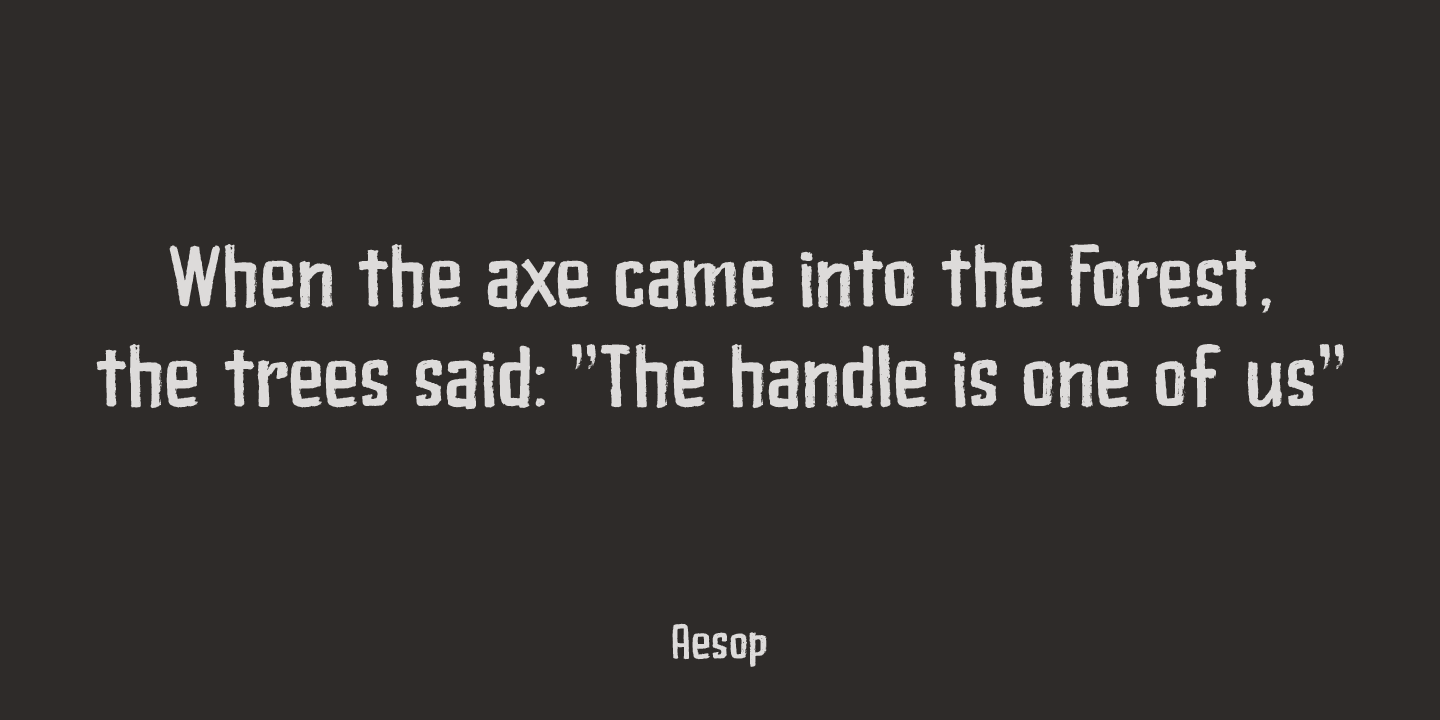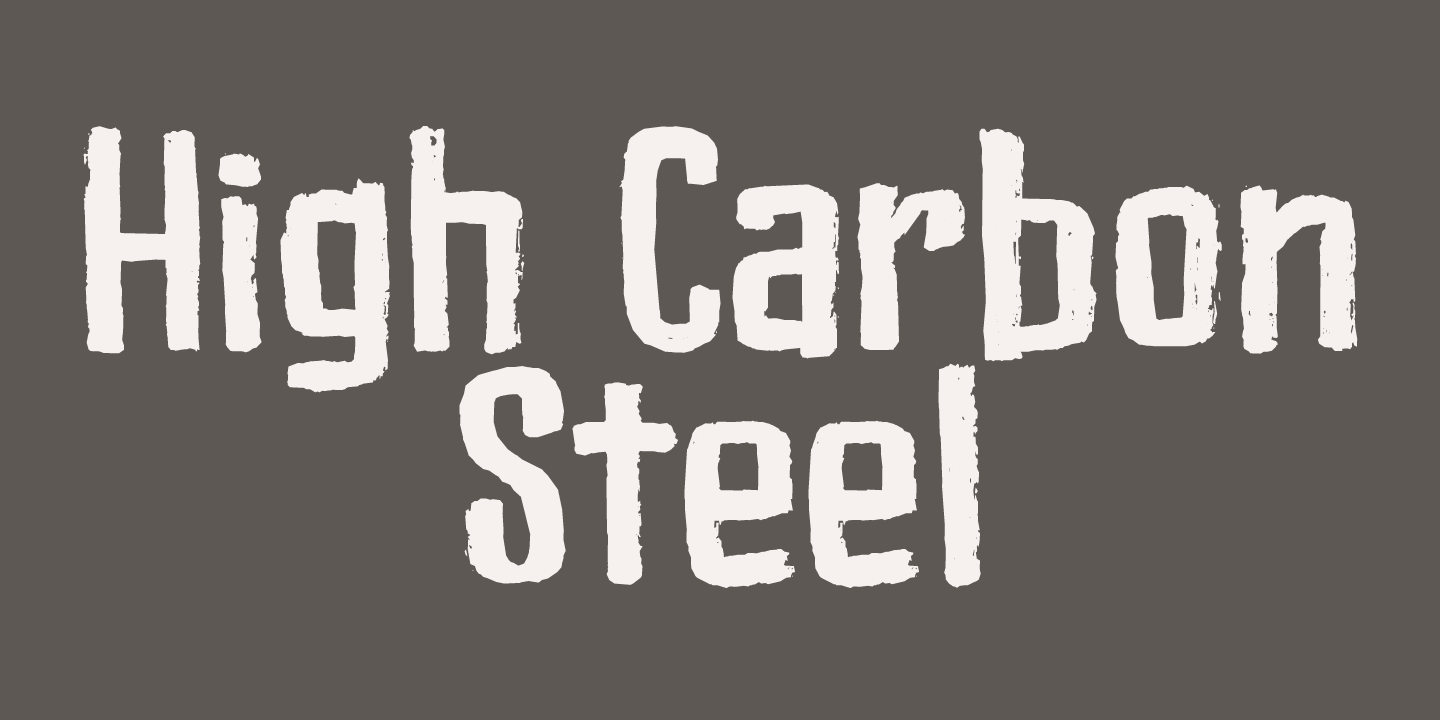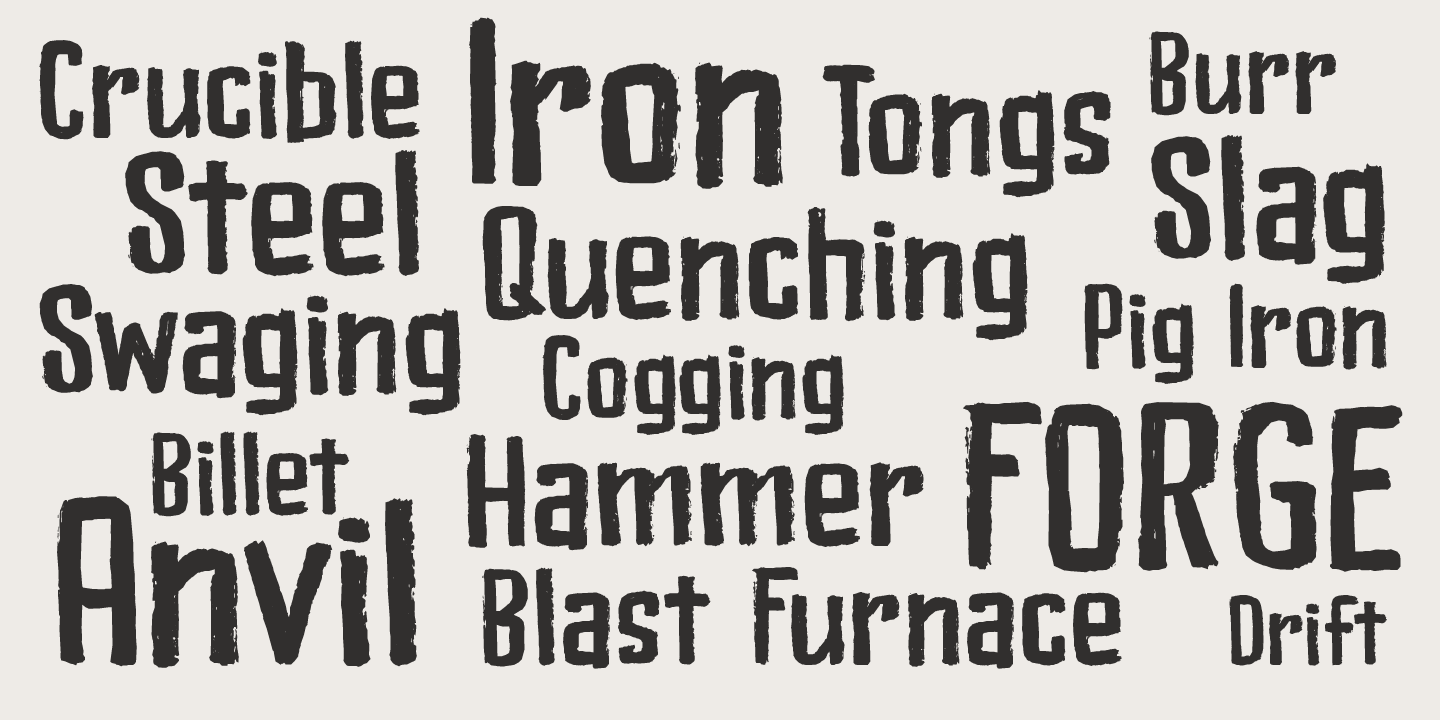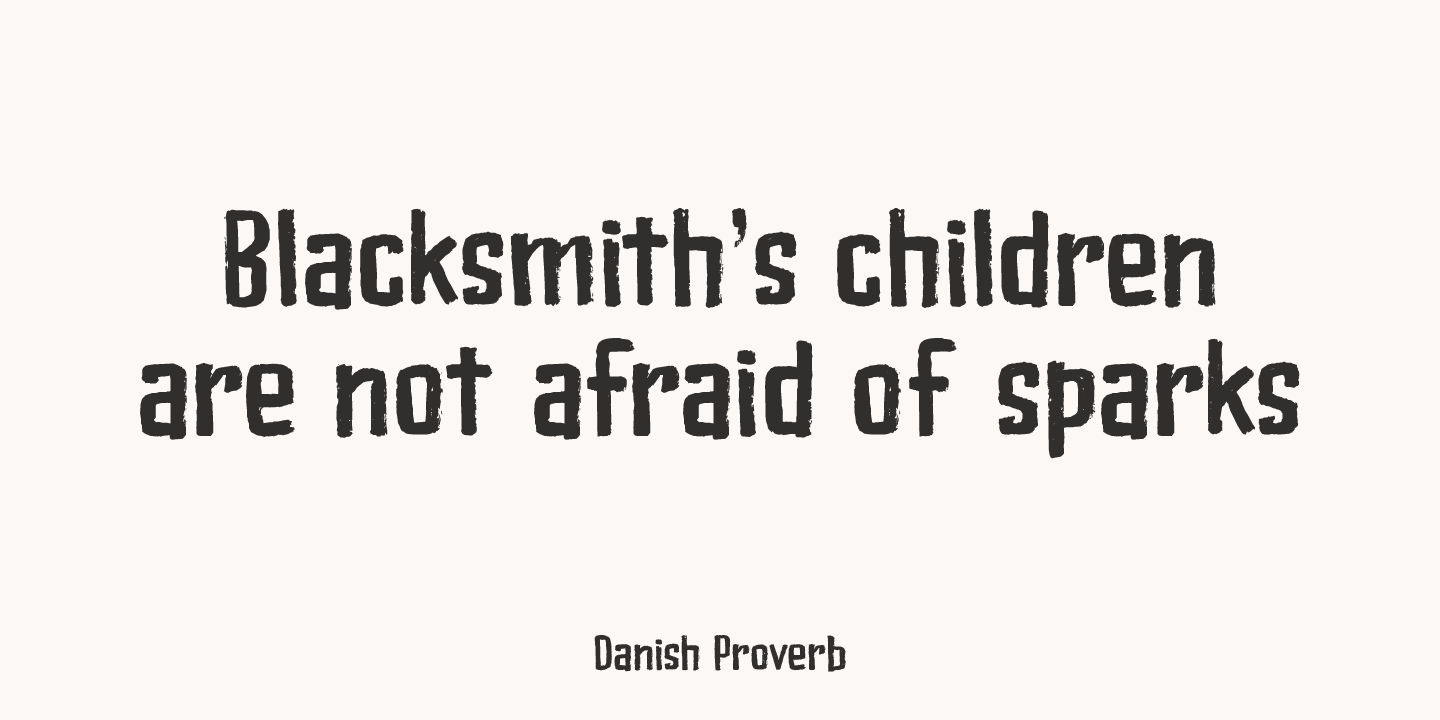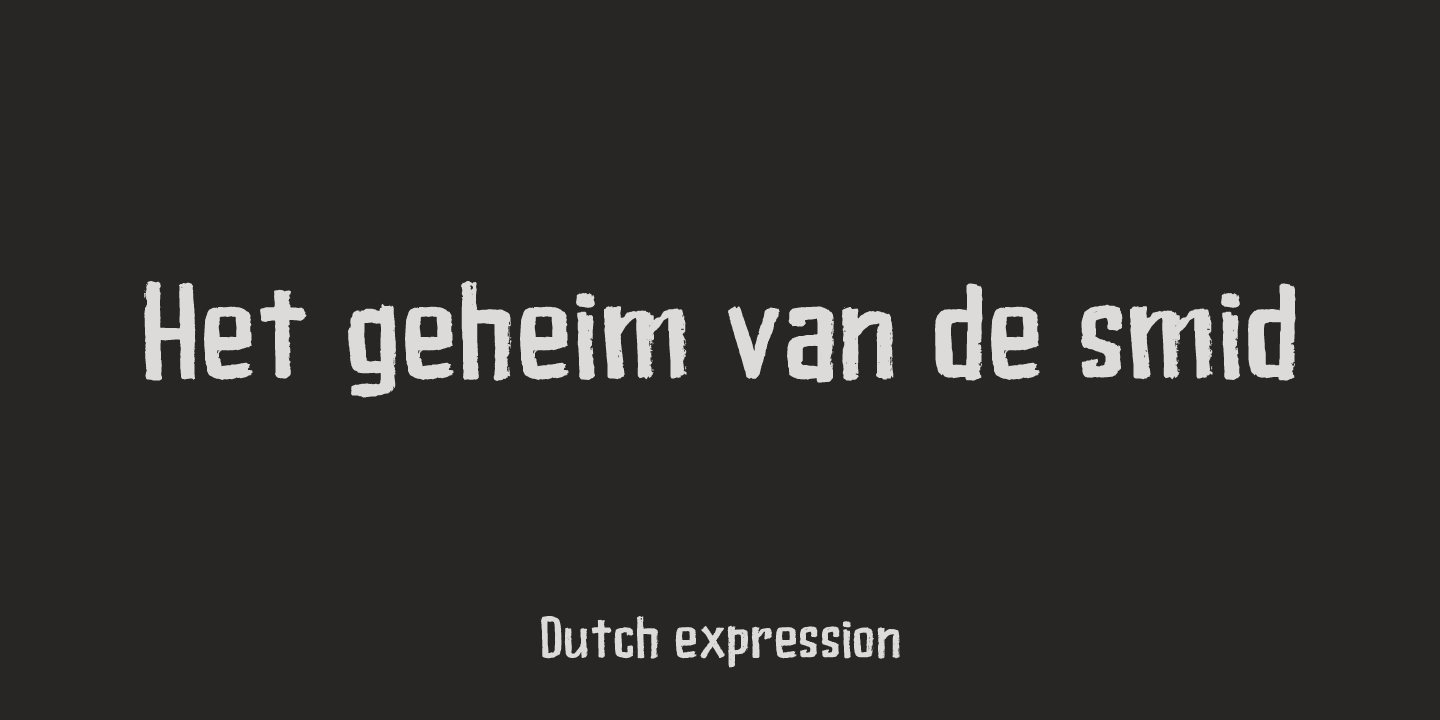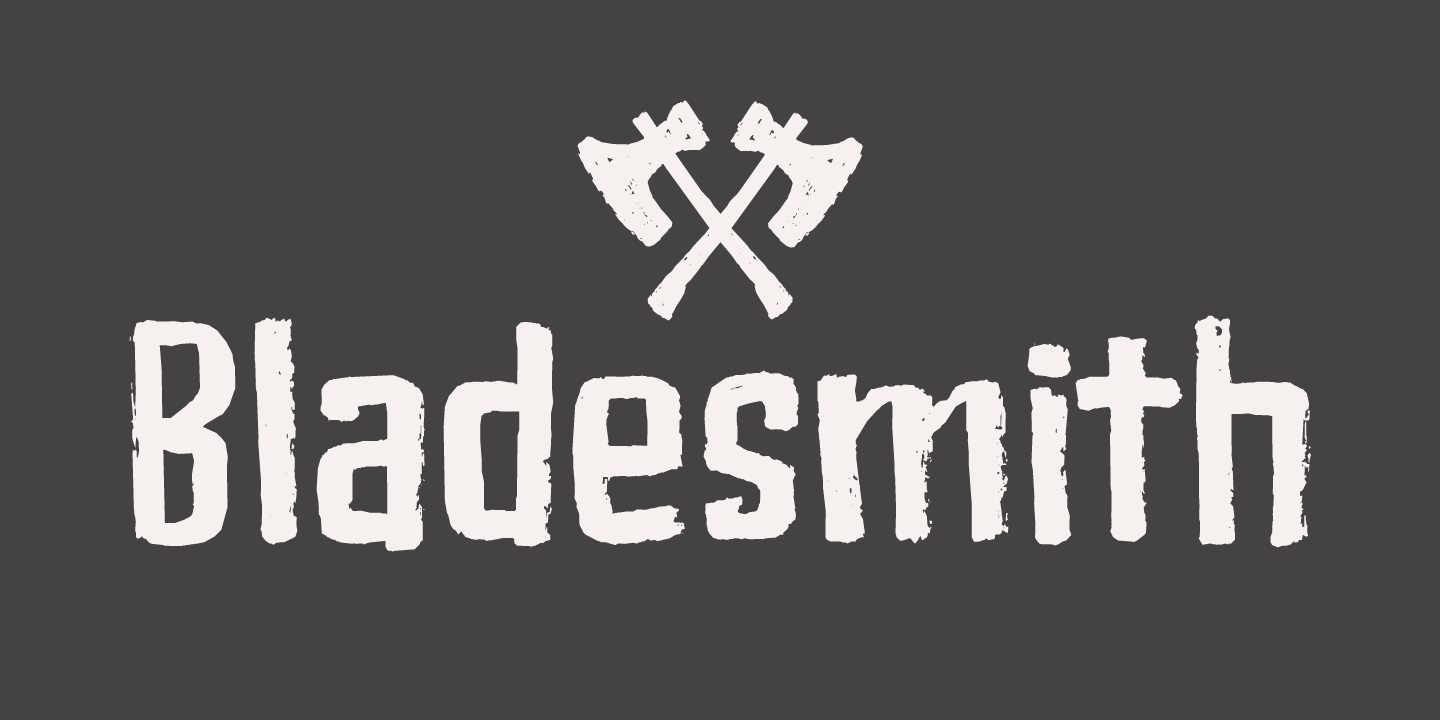
I have always had a keen interest in forging; I used to be a silversmith, and I love working with metal. Some time ago I forged my first axe (a skegg